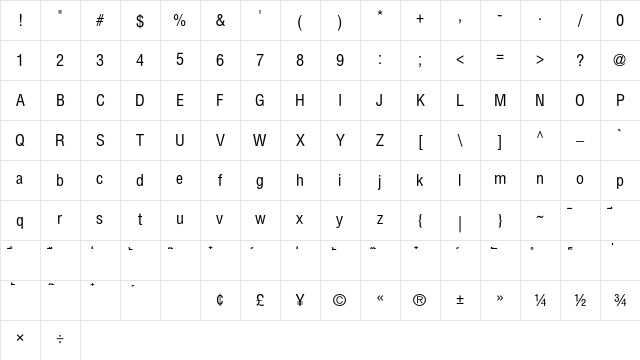
MP DBManopticaN Con R
Style: R
Foundry: Prinya R. nont
Designer: Prinya Rojarayanont
Design Context for MP DBManopticaN Con
MP DBManopticaN Con is a composed and adaptable typeface that performs quietly and consistently across a wide range of design contexts.
Who designed the MP DBManopticaN Con R font?